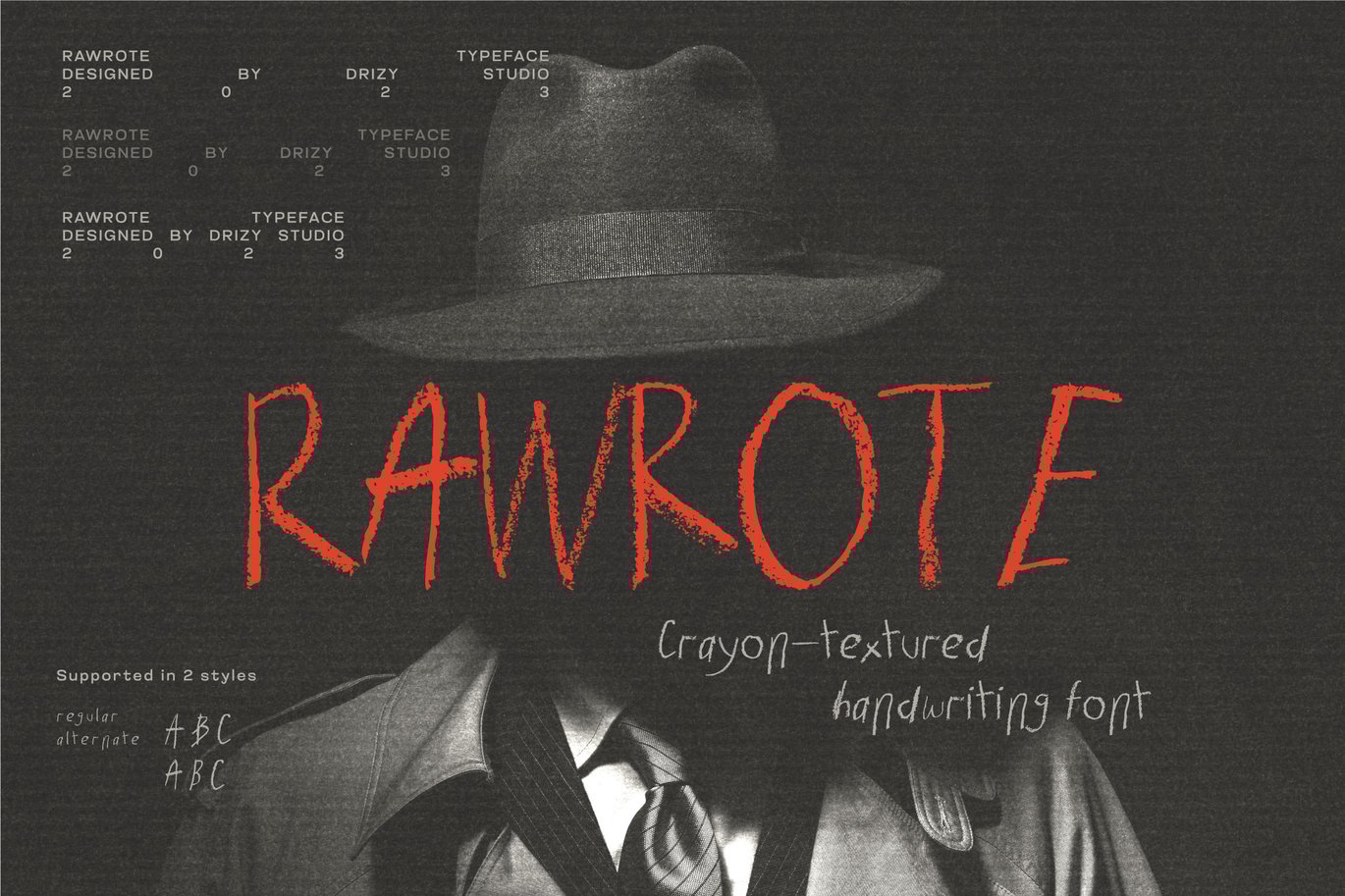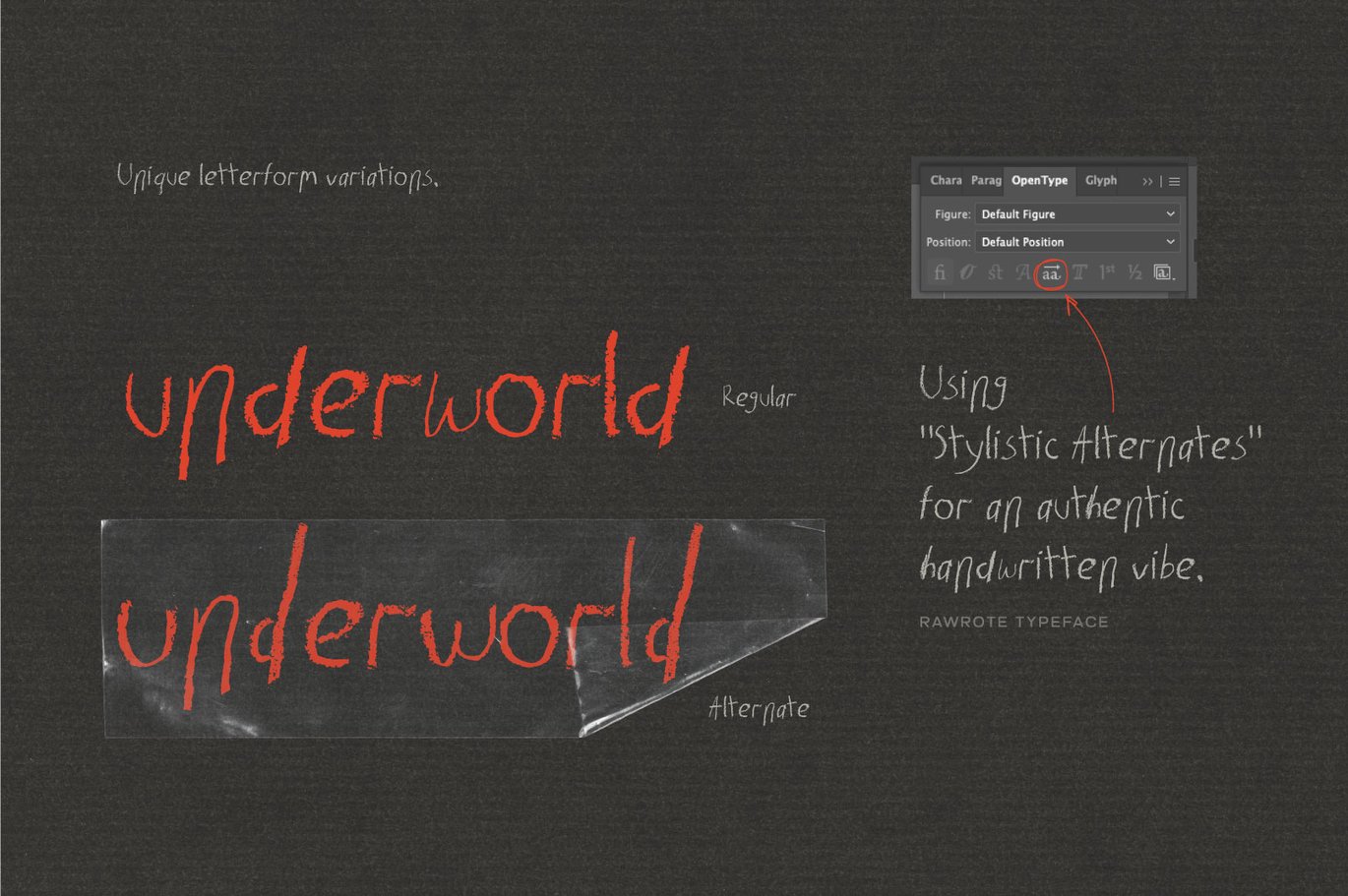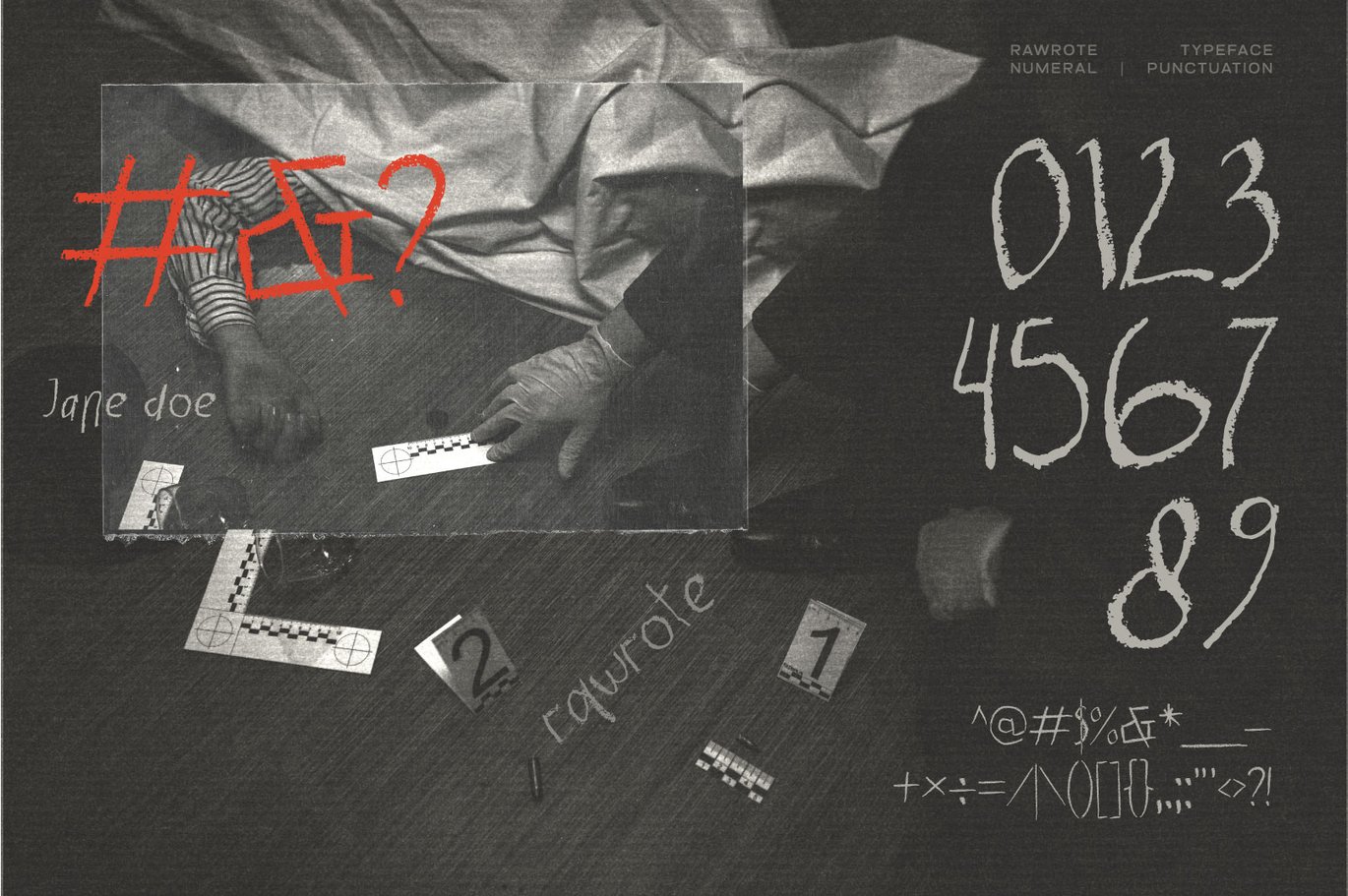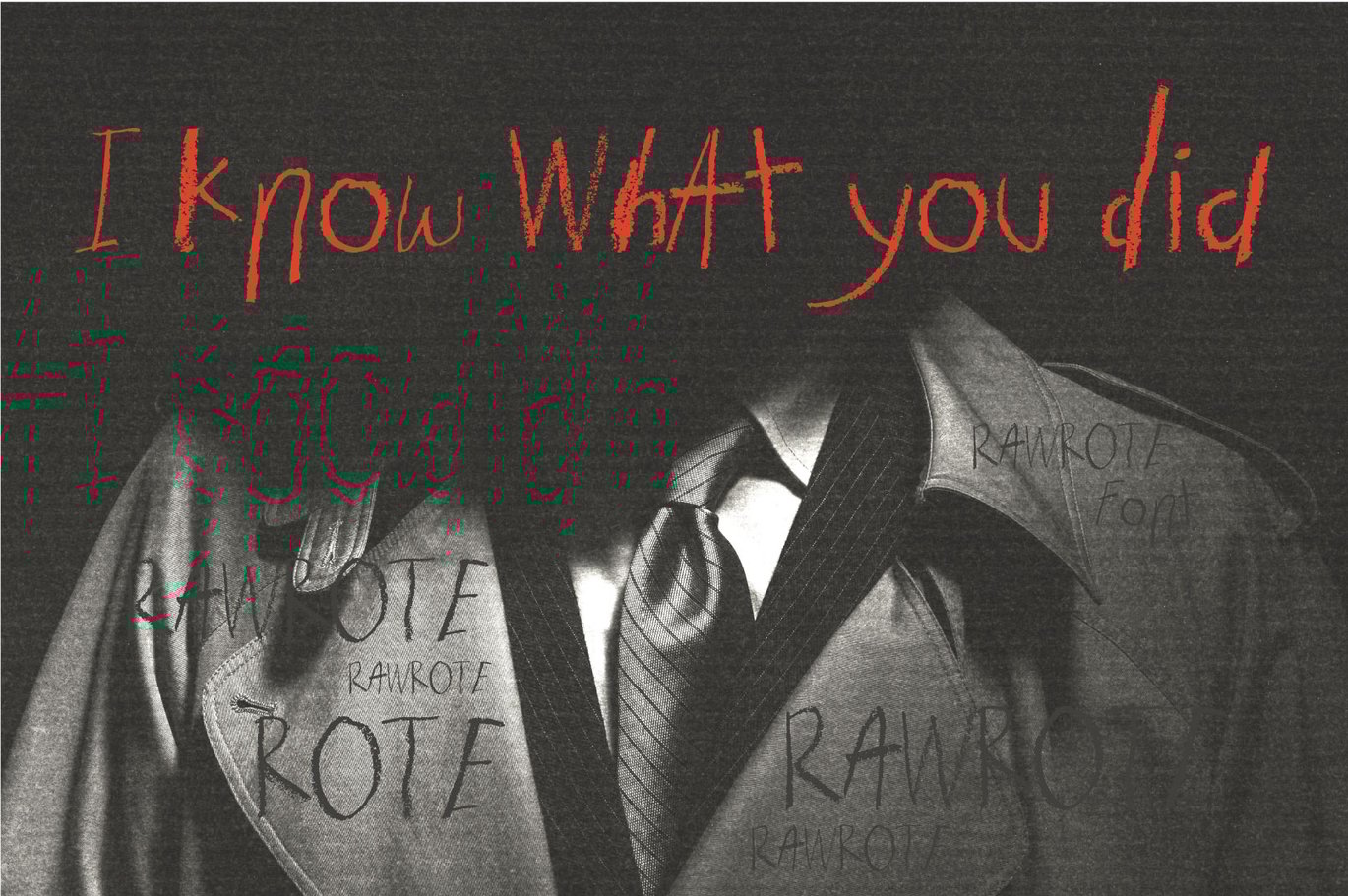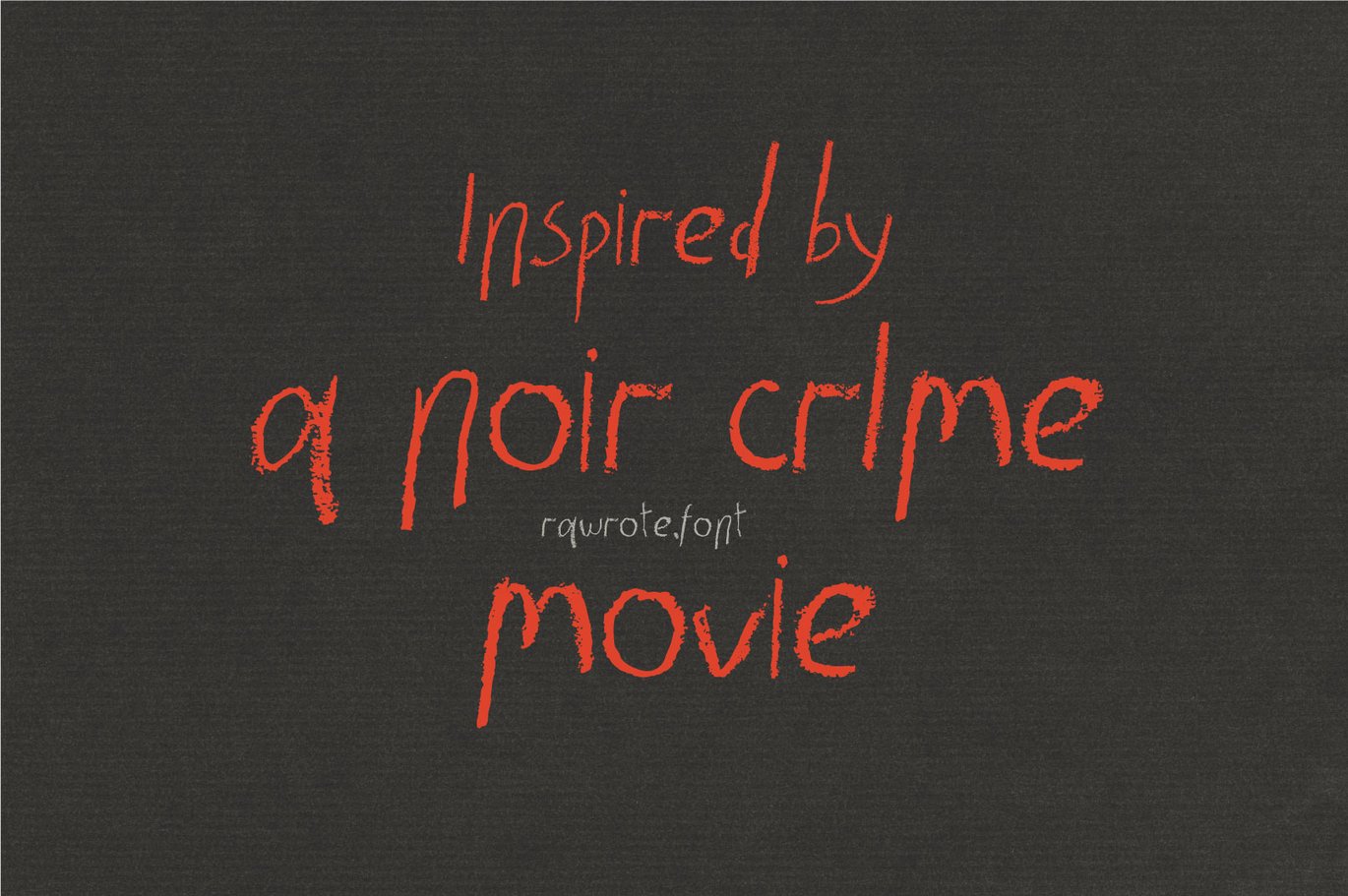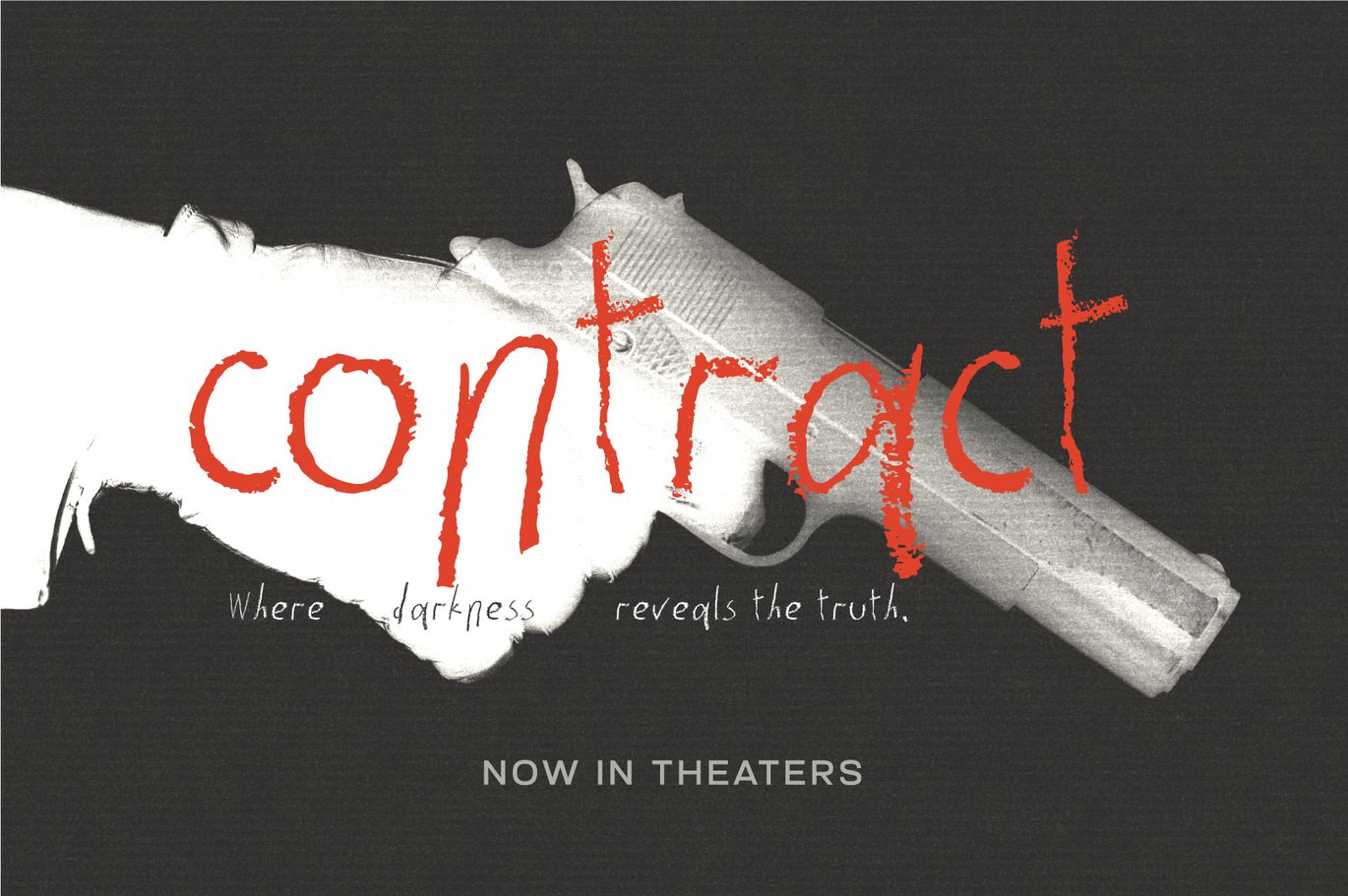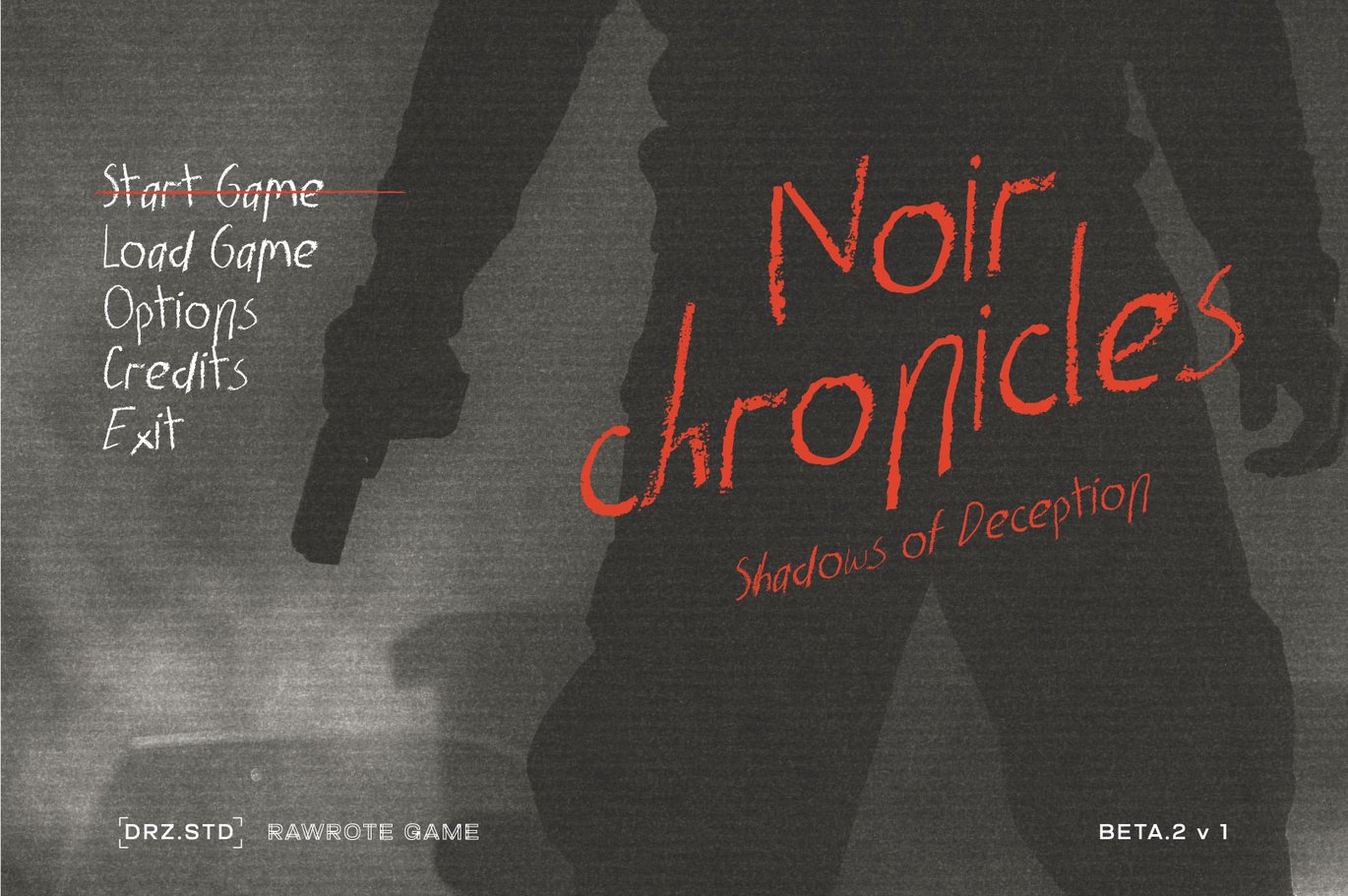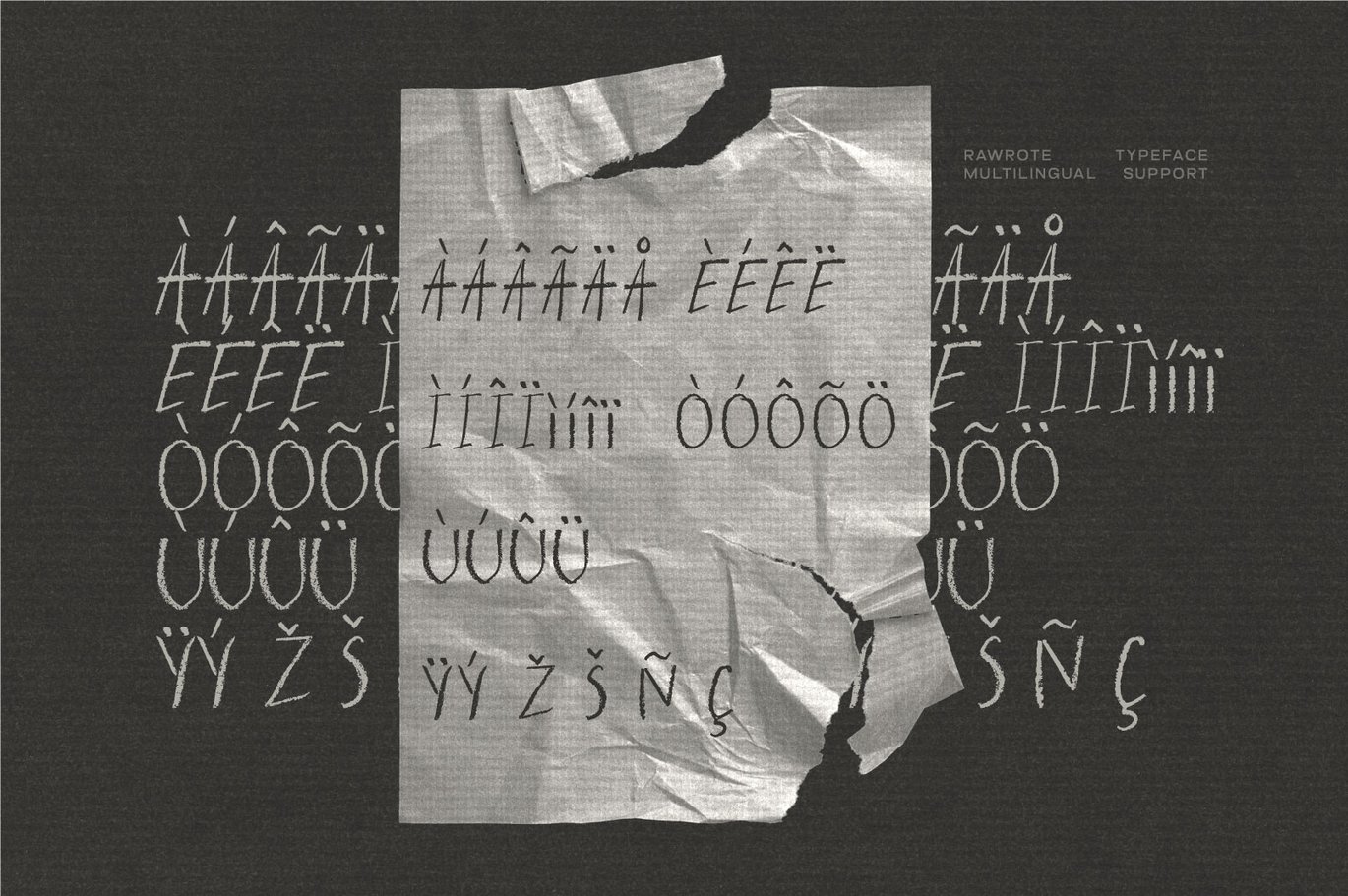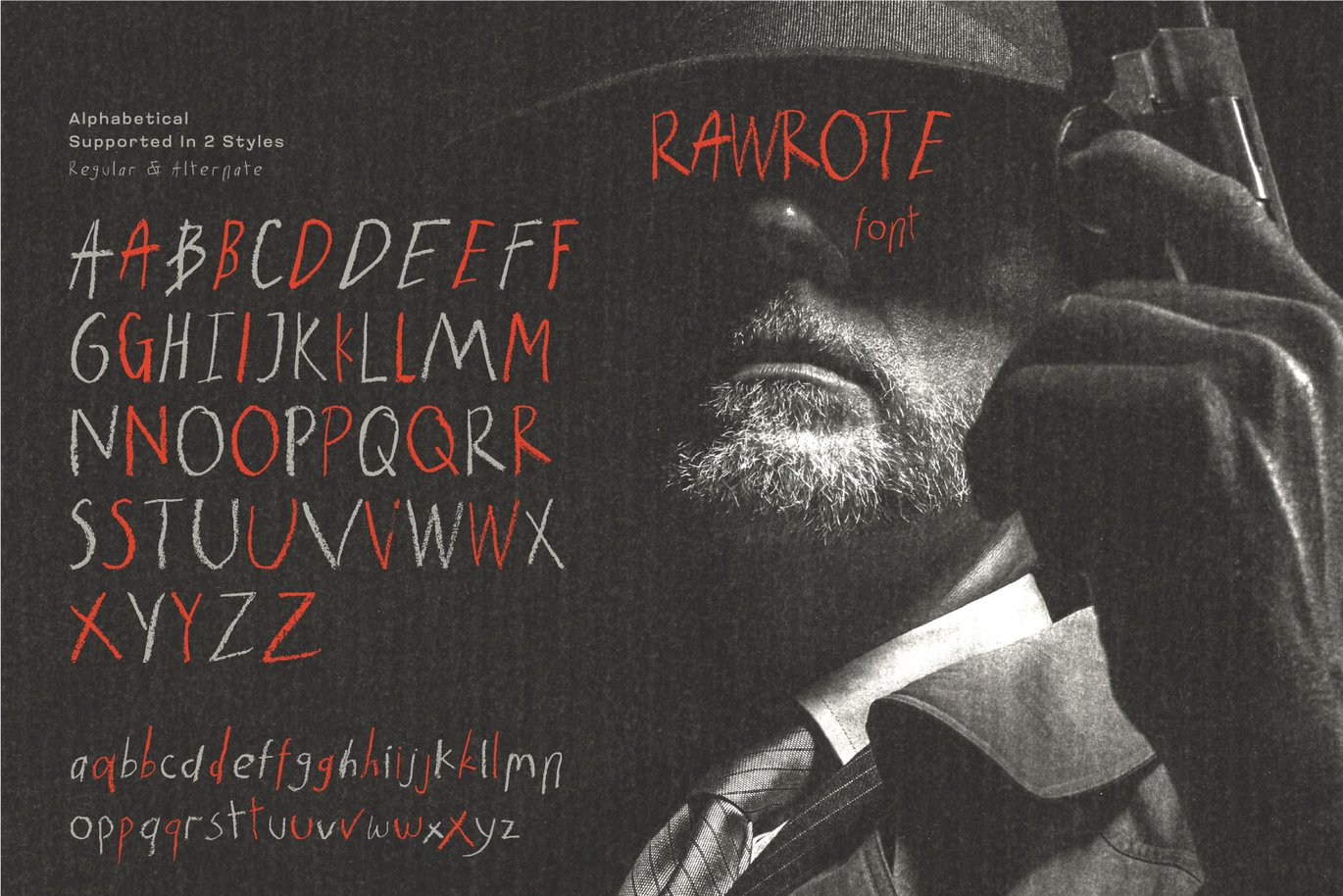
Rawrote – Crayon-Textured Handwriting Font
Introducing Rawrote, a captivating and unique Crayon-Textured Handwriting Font that adds a horror touch to your projects. This hauntingly unique typeface combines the raw and unsettling texture of crayons with the unsettling aesthetic of horror, creating an atmosphere of mystery and fear.